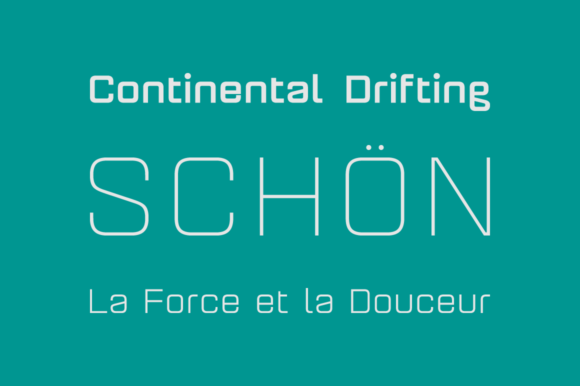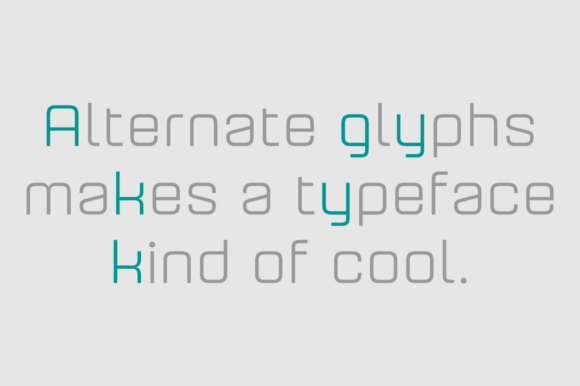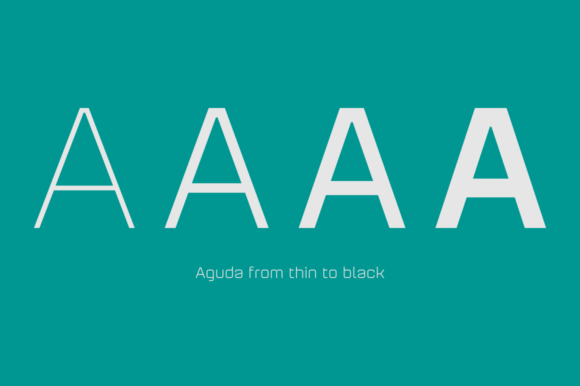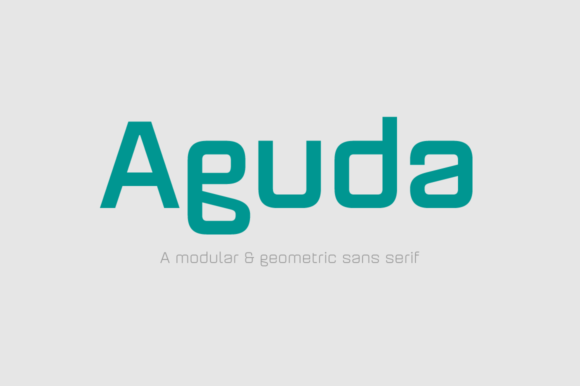
The Aguda Family Font: A Geometric Marvel for Creative Projects
Have you ever been in the middle of a design project, pouring your heart and soul into every detail, only to hit a roadblock when it comes to choosing the perfect font? I certainly have. It was during one of those moments, working on a branding project that required a unique and versatile typeface, that I stumbled upon the Aguda Family Font. Designed by Pablo Balcells for Graviton Font Foundry in 2014, this modular, geometric typeface has been a game-changer for me, and I’m excited to share its wonders with you.
A Personal Encounter with Aguda
I was working on a client’s branding project, aiming for a modern yet elegant look. The client was clear: they wanted a font that was not only visually striking but also highly legible across various platforms. After hours of scouring through font libraries, I stumbled upon Aguda. Its clean lines, geometric shapes, and the promise of 8 styles, including small caps and alternate characters, immediately caught my attention. It was as if I had found a needle in a haystack.
An Honest Review of Aguda Family Font
- ✨ Versatility: With 8 styles, including small caps and several alternate characters, Aguda offers a wide range of creative possibilities.
- ✅ Legibility: Its geometric design ensures that Aguda remains clear and legible, even at smaller sizes.
- 💡 OpenType Features: Aguda supports OpenType features, allowing for advanced typographic control.
- 🎨 Aesthetic Appeal: The font’s modern and clean design makes it perfect for branding, advertising, and design projects that demand a contemporary look.
- 🤔 Learning Curve: For those new to using OpenType features or glyphs, there might be a slight learning curve to fully leverage Aguda’s capabilities.
- ⚠️ Overuse: Given its striking appearance, there’s a risk of overusing Aguda in a project, which can lead to visual fatigue.
The Backstory of Aguda
Aguda was conceived by Pablo Balcells for Graviton Font Foundry in 2014. The designer’s goal was to create a typeface that was not only visually appealing but also highly functional. Inspired by geometric shapes and the need for clarity in digital and print media, Aguda was crafted to serve as a versatile tool for designers. Its creation reflects a blend of traditional typography principles and modern design requirements.
Q: What is the Aguda Family Font?
A: The Aguda Family Font is a modular, geometric typeface designed by Pablo Balcells for Graviton Font Foundry in 2014. It consists of 8 styles and features small caps and alternate characters.
Q: Is Aguda suitable for body text?
A: While Aguda is primarily designed as a display typeface, its clarity makes it suitable for short to intermediate length texts. However, for extensive body text, a more traditional serif or sans-serif font might be more appropriate.
Q: Does Aguda support OpenType features?
A: Yes, Aguda supports OpenType features, allowing users to access advanced typographic controls and glyphs.